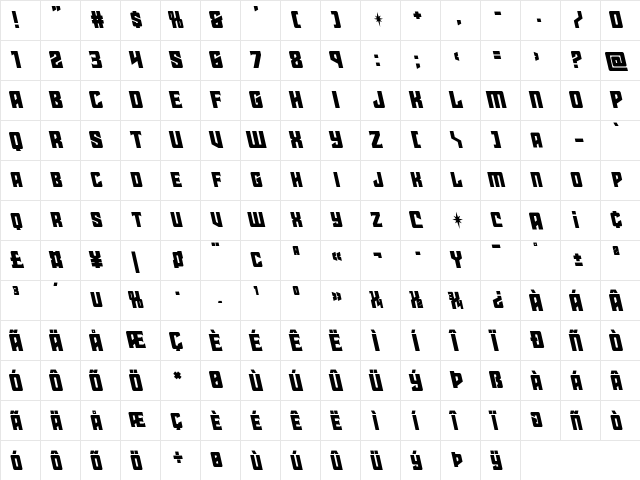
Star Guard Leftalic Italic
Design Context for Star Guard Leftalic Typeface
Star Guard Leftalic is a composed and adaptable typeface that performs quietly and consistently across a wide range of design contexts. The slanted form adds forward momentum and visual energy.